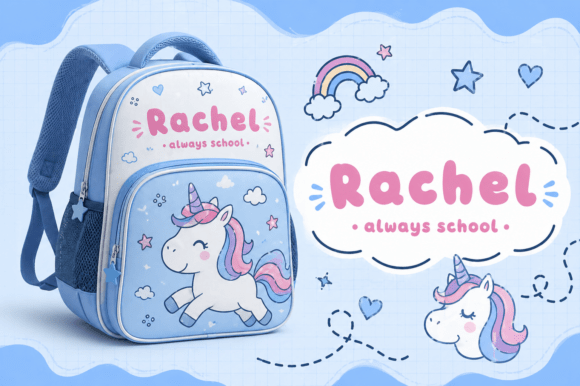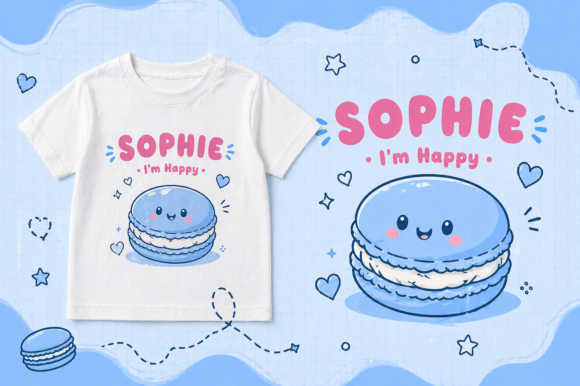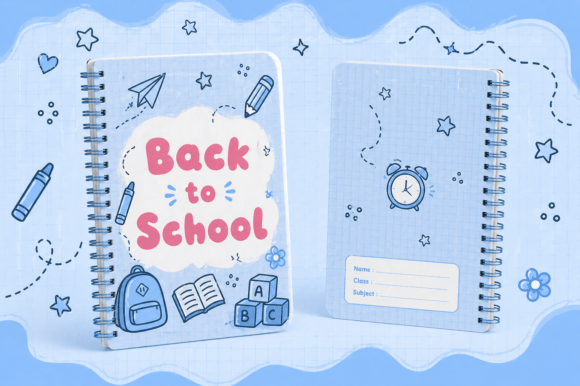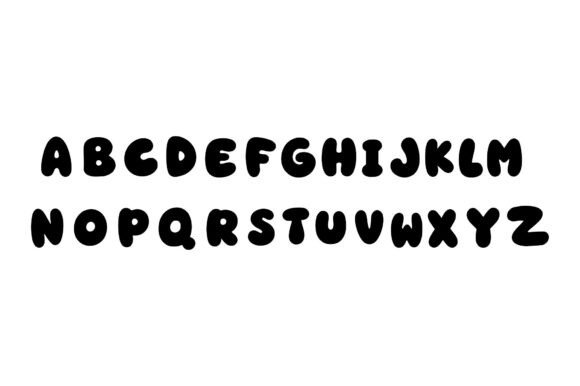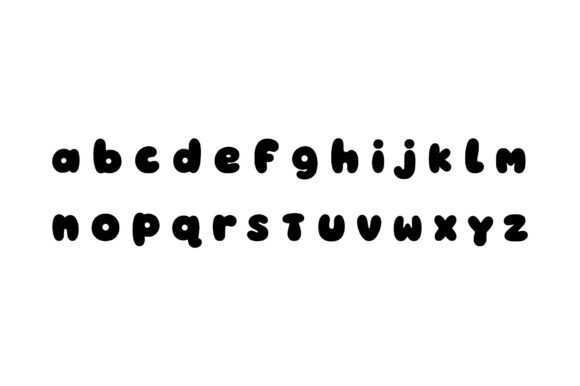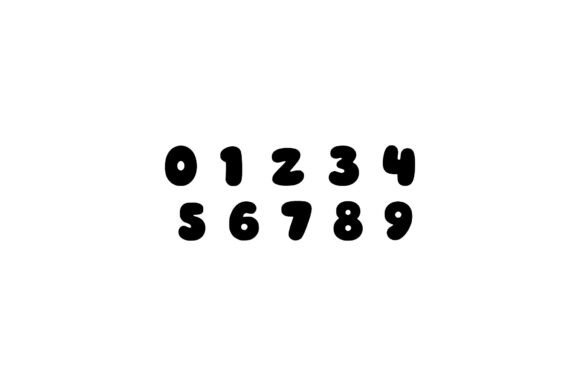
Unleashing Childhood Wonder: The Kidos Font Experience
Who among us hasn’t scribbled out a playful doodle on a childhood worksheet, only to be caught by a parent or teacher with a mix of amusement and a hint of disapproval? Those carefree moments, though fleeting, often spark a deep-seated desire to create and express ourselves in the most authentic way possible. It’s precisely this feeling of unbridled creativity that the Kidos Font embodies, capturing the essence of a “playful-and-primary” soul that resonates with designers and brands alike.
The Kidos Font is a bubbly display sans that seamlessly bridges the gap between whimsical classroom doodles and modern children’s branding. Its massive, rounded letterforms and soft structural weight make it an invaluable asset for designers seeking to craft engaging, approachable, and joyful visual identities.
Whether you’re working on a project for an independent toy store, a boutique nursery, or a primary education material, the Kidos Font is sure to bring a touch of magic to your design. Its unique character and friendly personality make it a go-to choice for designers looking to tap into the unbridled energy of childhood wonder.
Kidos Font Key Features
- Font Family: Kidos Font is a modern sans-serif font family, designed for use in digital and print media.
- Font Sizes: Available in 6 weights, ranging from Light to Extra Bold, providing flexibility for designers to achieve their desired visual effects.
- Unique Characteristics: Kidos Font features a unique blend of geometric and organic elements, resulting in a distinctive and modern aesthetic.
- Language Support: Supports a wide range of languages, including Latin, Cyrillic, and Greek scripts, making it a versatile choice for global projects.
Kidos Font Review
Overall, I think the Kidos Font has some great qualities, but it also has its limitations. Let’s start with the good stuff.
- The Kidos Font has a fun, playful feel to it. It’s perfect for projects that need a lighthearted touch.
- The font is highly legible, even at smaller sizes. This makes it great for body text and other areas where readability is key.
- The font includes a wide range of language support, making it a great choice for projects that need to be translated.
- The Kidos Font can feel a bit too playful at times. If you’re looking for a font that’s more serious or professional, this might not be the best choice.
- The font’s design can make it difficult to use for headings or titles. The letterforms can feel a bit too rounded and lacking in contrast.
- The font’s weight system can be a bit inconsistent at times. Some weights feel too similar, making it hard to choose the right one for your project.
Overall, the Kidos Font is a solid choice for projects that need a fun, playful feel. While it has some limitations, it’s a great option for body text and other areas where readability is key. With a bit of caution and careful selection, you can use the Kidos Font to create some amazing designs.
Tips for Getting the Most Out of Kidos Font
To get the most out of Kidos Font, try using it in bold or italic styles to add emphasis to your text.
Kidos Font is perfect for:
- Children’s books and educational materials.
- Playful branding and marketing materials.
- Fun and creative graphics and illustrations.
Alternatives to Kidos Font
Great Vibes is a modern, handwritten font that can be used for headings, quotes, and other creative elements. It has a unique, cursive style that adds a touch of personality to designs. Great Vibes is ideal for projects that require a fun, playful tone, such as children’s books, advertising, and social media graphics.
Great Vibes compares to Kidos Font in that it also has a handwritten feel, but it has a more refined and elegant look. Great Vibes is more versatile and can be used in a wider range of projects, from formal to informal designs.
Lobster is a script font that is perfect for creating a bold, eye-catching effect. It has a unique, cursive style that is ideal for headings, titles, and other large text elements. Lobster is ideal for projects that require a dramatic, attention-grabbing tone, such as advertising, brochures, and event invitations.